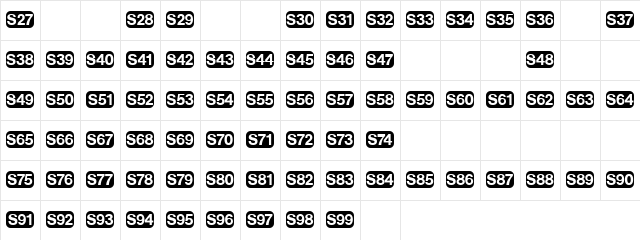
DeutscheBahnAG Four
Design Context for DeutscheBahnAG
DeutscheBahnAG is a composed and adaptable typeface that performs quietly and consistently across a wide range of design contexts.